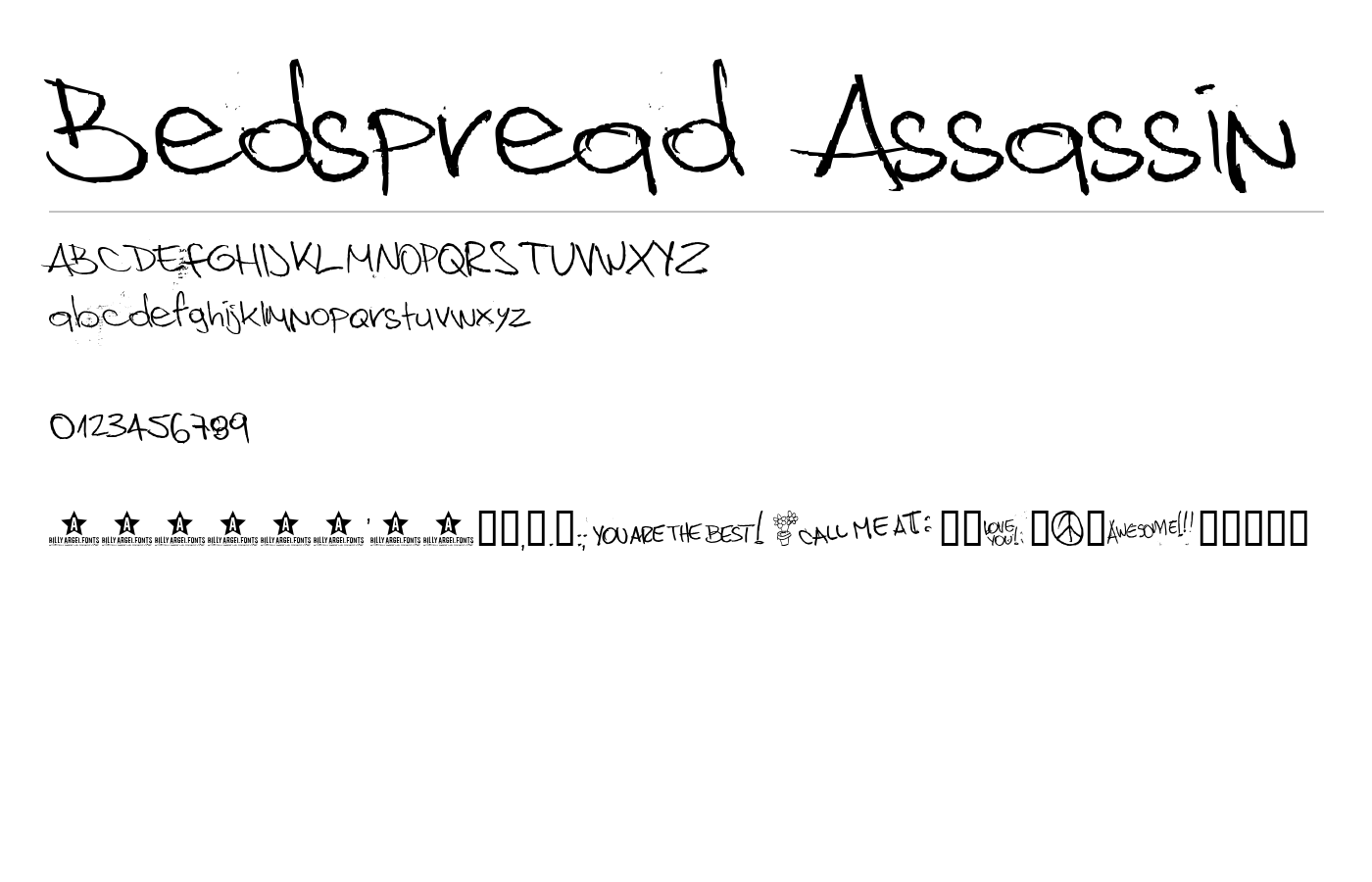
Bedspread Assassin is a playful, handwritten-style font with a casual and slightly rough texture that gives it an authentic, hand-drawn feel. Its tall, narrow letterforms and uneven strokes create an energetic and informal look, perfect for creative projects that want to convey a quirky, personal, or edgy vibe. This font is ideal for headlines, posters, and artistic designs that benefit from a unique, expressive touch.
Bedspread Assassin Font
About Bedspread Assassin Font
| Font family | Bedspread Assassin Font |